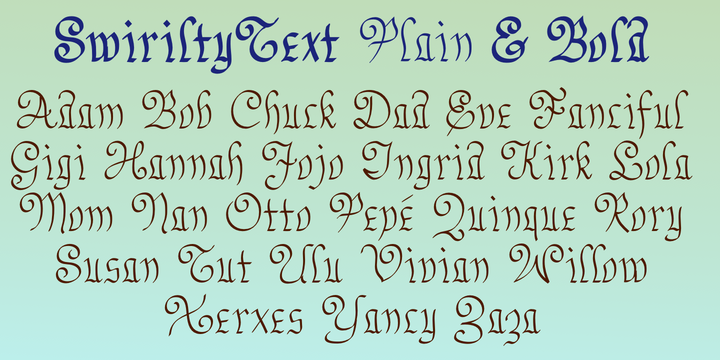
Swirlity Text
Designed by: Robert Schenk
Designed when: 1994
Swirlity Text
SwirliltyText is a fussy calligraphic typeface with lots of curves and wiggles.